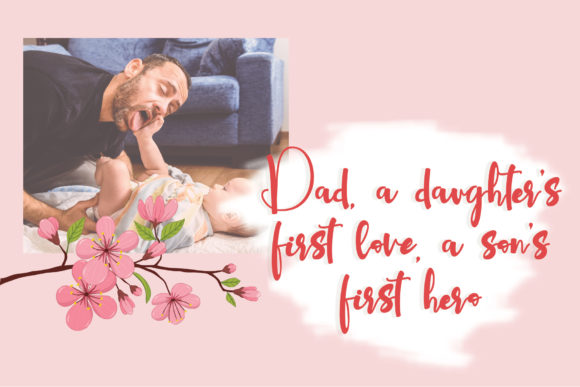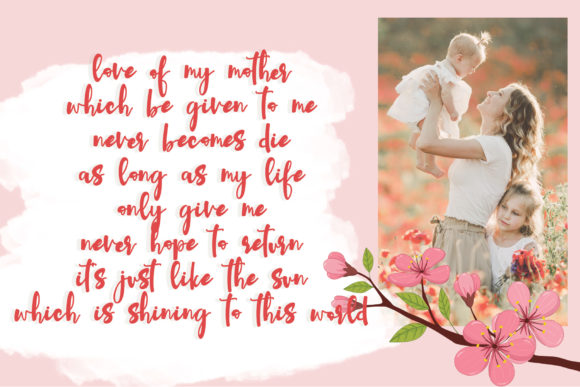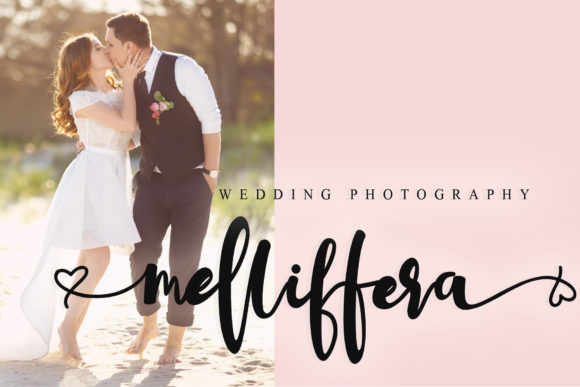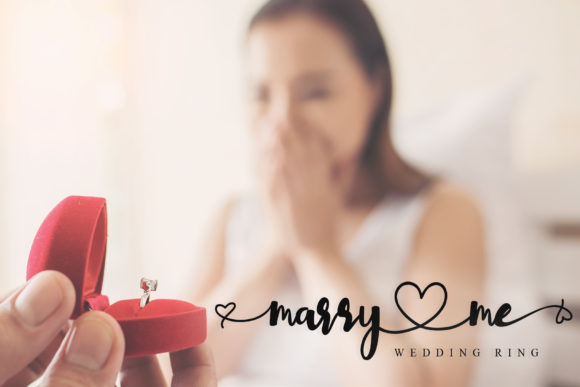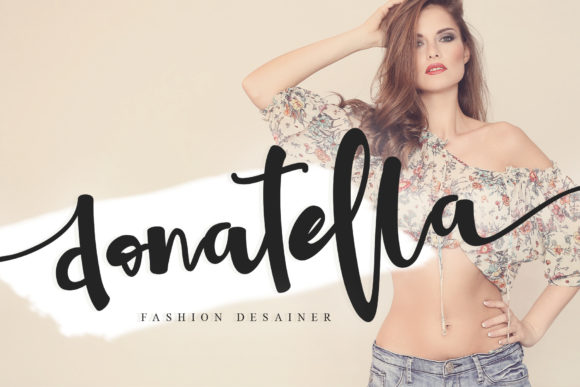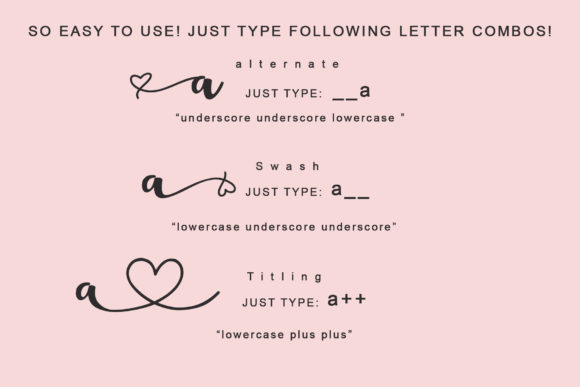
Introduction to Love Lovely Font
Have you ever stumbled upon the perfect design element that makes your creative project stand out from the crowd? For me, that moment came when I discovered the Love Lovely Font. As a designer, I was immediately drawn to its romantic handwritten feel and the way it added a touch of whimsy to my designs. Whether I’m working on a wedding invitation or a social media post, this font has become my go-to choice for adding a personal and emotional connection to my work.
But what makes Love Lovely Font truly special is its ability to elevate any design project with its high-quality, PUA encoded glyphs and swashes. With a transparent background, this font can be easily combined with other design elements to create stunning visuals. As a valuable design resource, Love Lovely Font is a must-have for any creative professional looking to add a touch of love to their projects.
Key Features of Love Lovely Font
- High-quality, vector-based font design, ideal for creative projects that require a touch of elegance.
- Transparent background option, allowing for seamless integration with any design or image.
- Designed to be versatile, suitable for a wide range of design applications, from wedding invitations to branding materials.
- Unique characteristics include elegant script and cursive styles, perfect for adding a personal touch to any creative project.
Honest Review: Love Lovely Font
As a designer, I’m always on the lookout for high-quality design resources to elevate my creative projects. Recently, I stumbled upon the Love Lovely Font and was impressed with its charm.
Here’s what works well: ✨ Beautiful Script**: The font features elegant, flowing lines that are perfect for creating eye-catching headings and titles. It’s great for designers looking to add a touch of sophistication to their work. ✨ Transparency**: The font comes with a transparent background, making it easy to layer over other design elements. ✨ Free Download**: The best part? It’s completely free to download, making it an excellent addition to any designer’s toolkit.
However, there are a few limitations: ⚠️ Limited Character Set**: The font only includes a limited character set, which may not be suitable for designers working on complex projects. ⚠️ Not Ideal for Small Text**: The font’s design is best suited for larger text sizes, as it can become difficult to read at smaller sizes.
Overall, I’m impressed with the Love Lovely Font’s quality and charm. While it may have some limitations, it’s a great resource for designers working on creative projects that require a touch of elegance.
- Perfect for headings and titles
- Transparency for easy layering
- Beautiful script design
How to Use Love Lovely Font
The Love Lovely Font can be used in a variety of design software, including Canva, Adobe Photoshop and Illustrator, and PowerPoint and Word. To use it in these programs, simply select the font from the font library and start typing. You can also use the font with a transparent background to create a more elegant and sophisticated look.
To get the most out of the Love Lovely Font, try using it in combination with other design elements, such as graphics and textures. This will help to create a cohesive and visually appealing design. You can also experiment with different font sizes and colors to add emphasis and interest to your project.
The Love Lovely Font is perfect for a variety of creative projects, including wedding invitations, birthday cards, and social media graphics. Its high-quality design and transparent background make it an ideal choice for any project where you want to add a touch of elegance and sophistication.
To use the Love Lovely Font with a transparent background, you can use a design software that supports this feature, such as Adobe Illustrator or Photoshop. Simply select the font and adjust the background settings to achieve the desired effect.
Is the Love Lovely Font a high-quality font?
Yes, the Love Lovely Font is a high-quality font designed to provide a professional and elegant look for your creative projects. With its smooth and clear lines, it is perfect for a variety of design applications, from logos and branding to digital products and print materials.